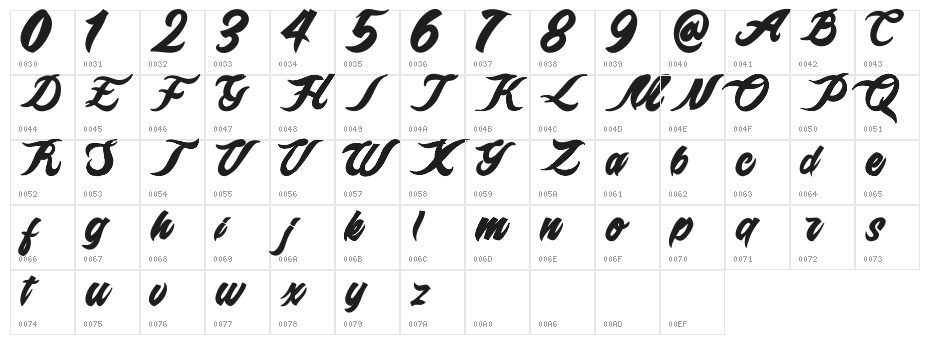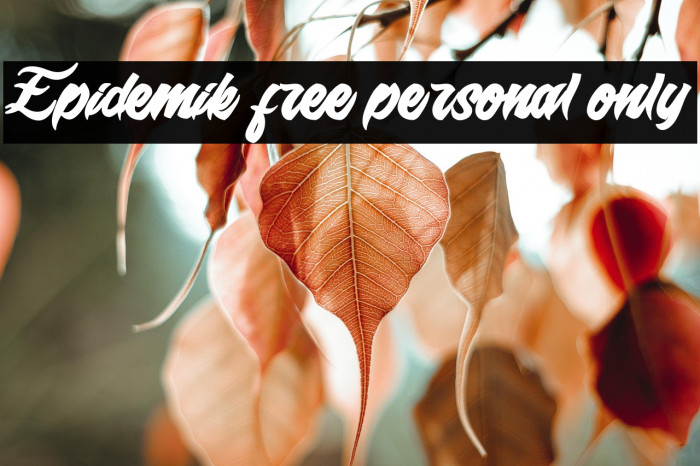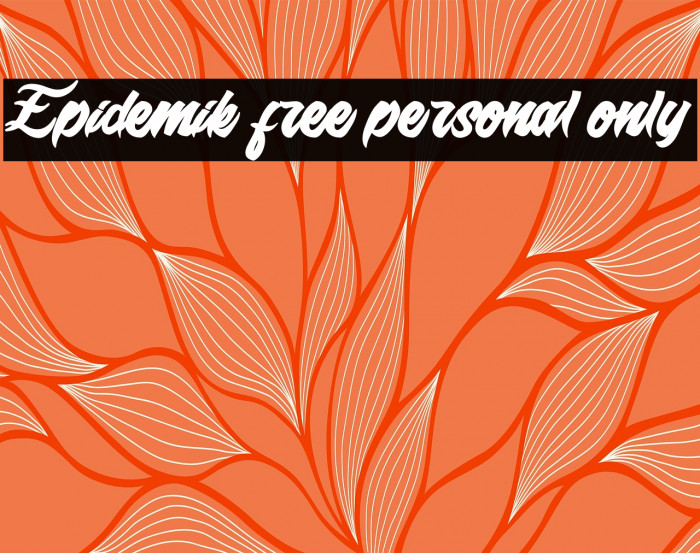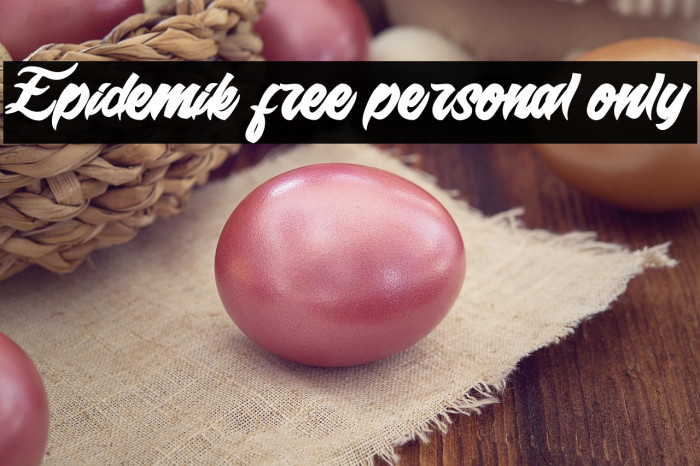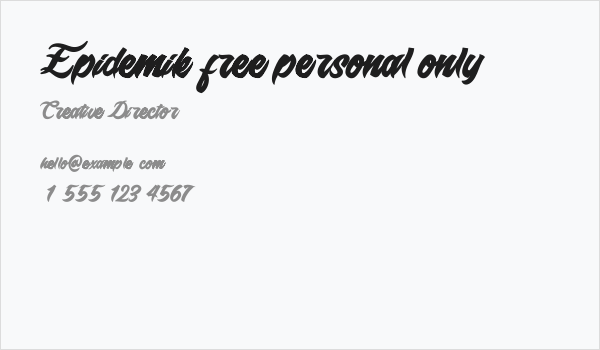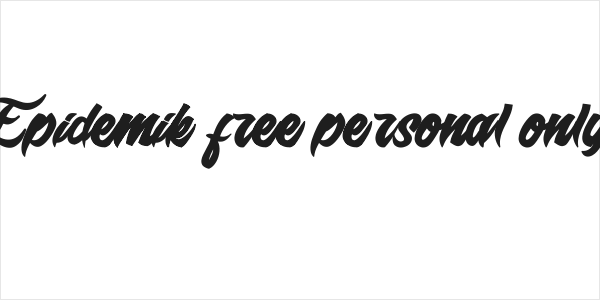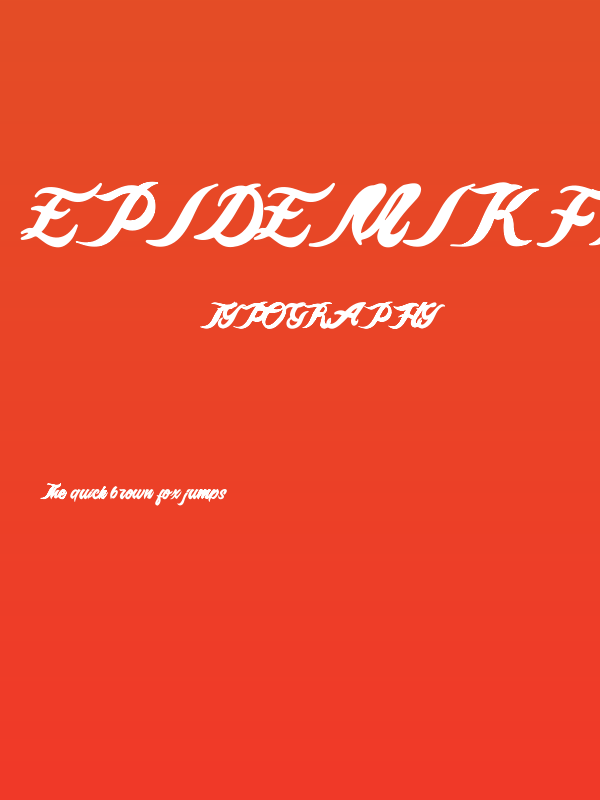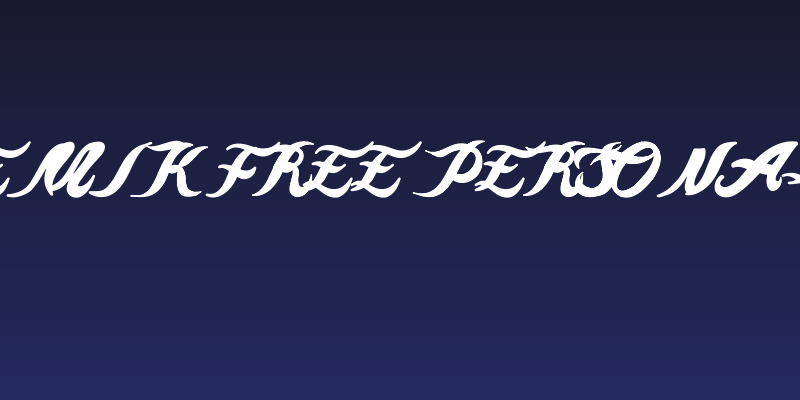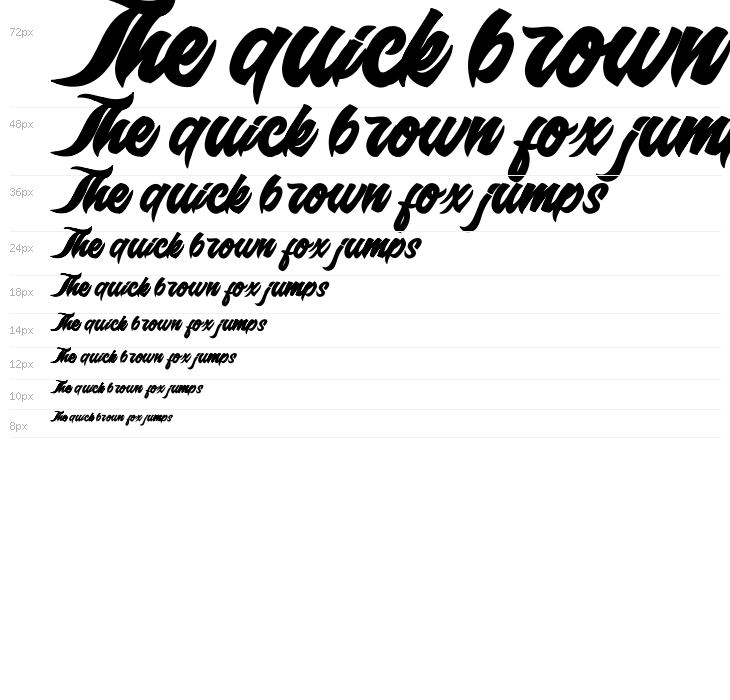
Epidemik free personal only Font
Epidemik free personal only Description
This font exhibits a bold and dynamic script style with a strong presence. The letters are interconnected, creating a fluid and continuous flow that mimics handwriting. The strokes are thick and consistent, giving the font a robust and impactful appearance. The uppercase letters maintain a uniform height, while the lowercase letters feature distinctive loops and curves, adding to the font's expressive nature. The numerals are equally bold, ensuring they stand out clearly. This font's energetic style makes it suitable for projects that require a touch of personality and flair.
| Proposed Projects | Ideal for branding, logo design, posters, and invitations where a personal and expressive touch is desired. |